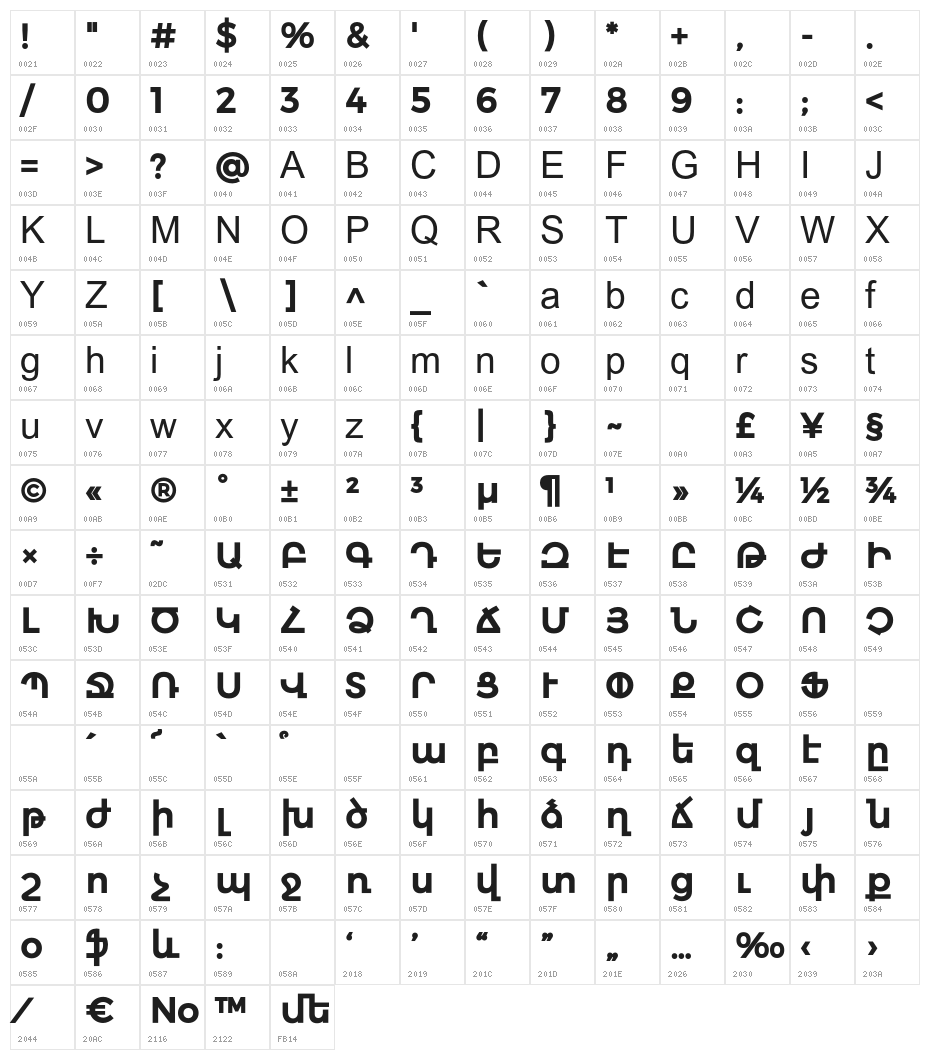
Bokonique-Bold Font
Bokonique-Bold Description
This font features a clean and modern sans-serif design with a bold weight, making it highly legible and impactful. The characters are evenly spaced with a normal width, providing a balanced and harmonious appearance. The uppercase and lowercase letters maintain a consistent stroke width, contributing to a uniform look. The numerals are clear and distinct, ensuring readability in various contexts. Special characters are well-defined, adding versatility to the font's usage. The overall style is contemporary, suitable for a wide range of applications.
Use CaseHeadlines, Logos, Digital interfaces
Proposed ProjectsIdeal for branding, advertising, headlines, and digital interfaces where clarity and impact are essential.